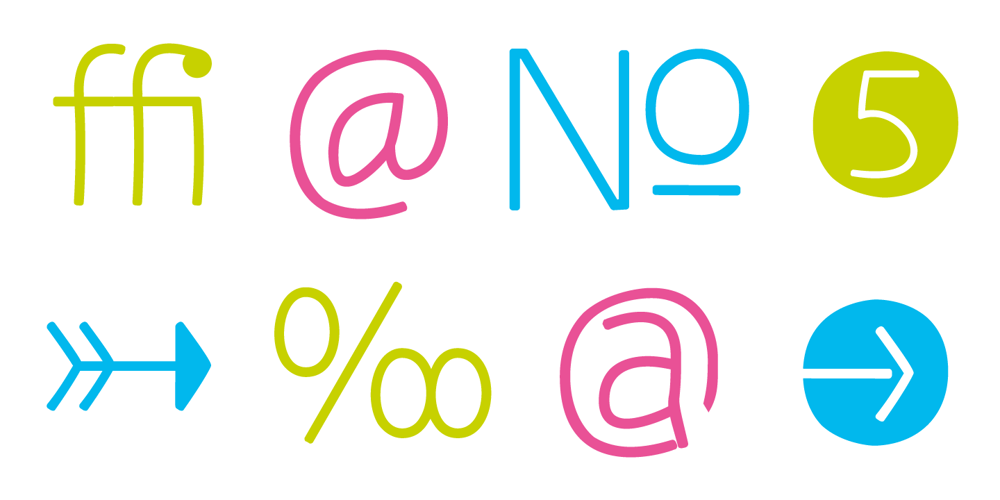
Kiddy Sans Font Family was designed by Manuel Viergutz and published by TypoGraphicDesign. Kiddy Sans contains 8 styles and family package options. CONCEPT/CHARACTERISTICS What is a childlike, naive writing, acting not boring static, has enough personality/character and yet is easy to read? › Oversized points › Slightly curved, warm and friendly bars › Open, friendly forms › Organic, lightly battered forms APPLICATION AREA The friendly, playful and warm character of the font »Kiddy Sans« would look good at display size for party flyer & movie poster, music covers or headlines in magazines or websites… TECHNICAL SPECIFICATIONS Headline Font | Display Font | Sans Serif Font »kiddy Sans« with 8 styles & 366 glyphs, inkl. accents & €